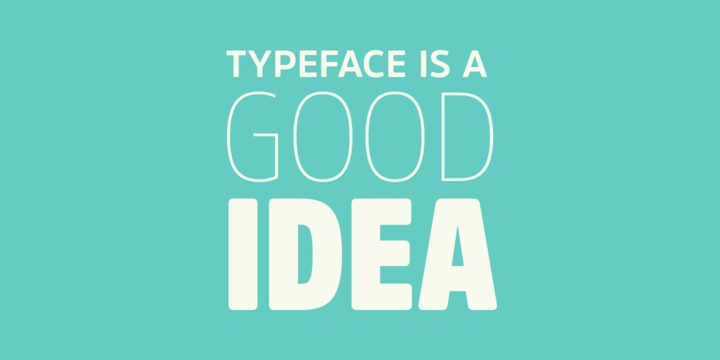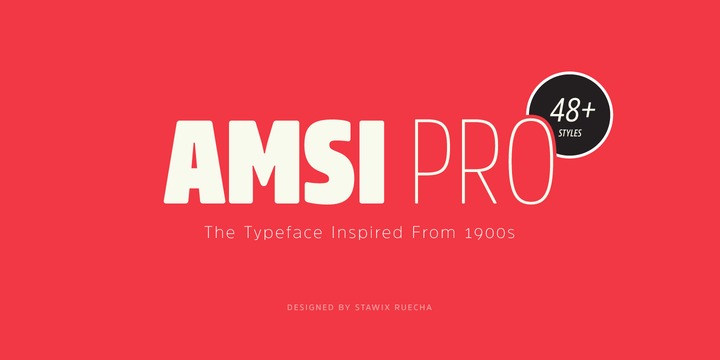
About this font family
Amsi has been designed to equipped with three different widths; Normal, Narrow and Condensed, addition to expanding weights to support various usabilities ranging from Thin, XLight, Light, Regular, SemiBold, Bold, Black and Heavy. Which makes Amsi along with a numerous features support the creativities of the designer from the Font Menu.